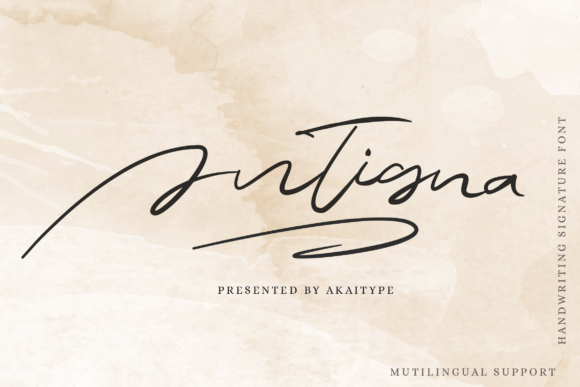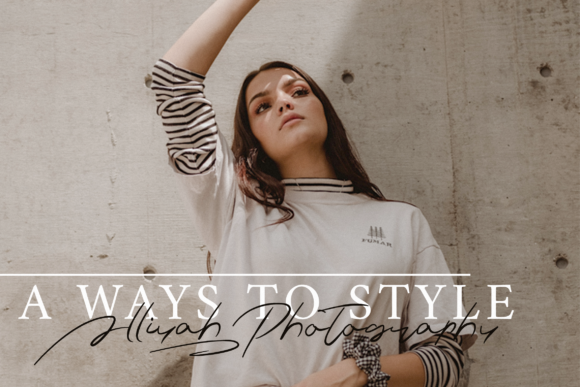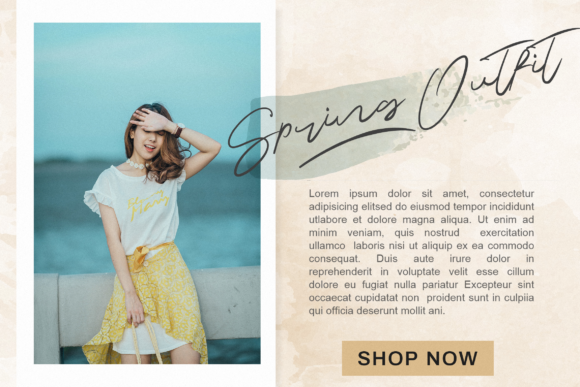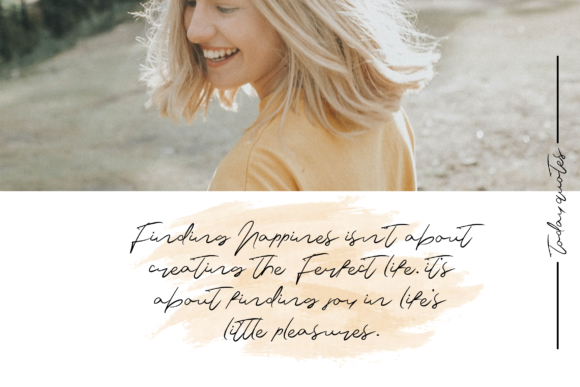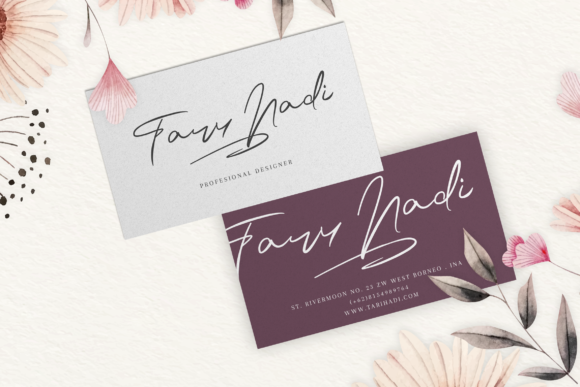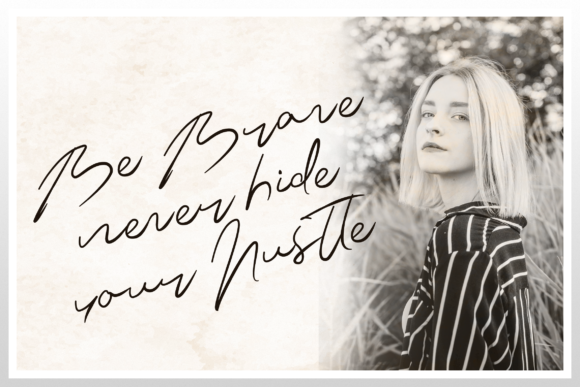
About Antigna Font
Antigna is a distinct graceful script font. Fall for its ravishing style and use it to create gorgeous designs. You can use it for various projects, such as blog posts, logos, branding, ads, invitations, greeting cards, planners, photo albums, decorations, and much more.